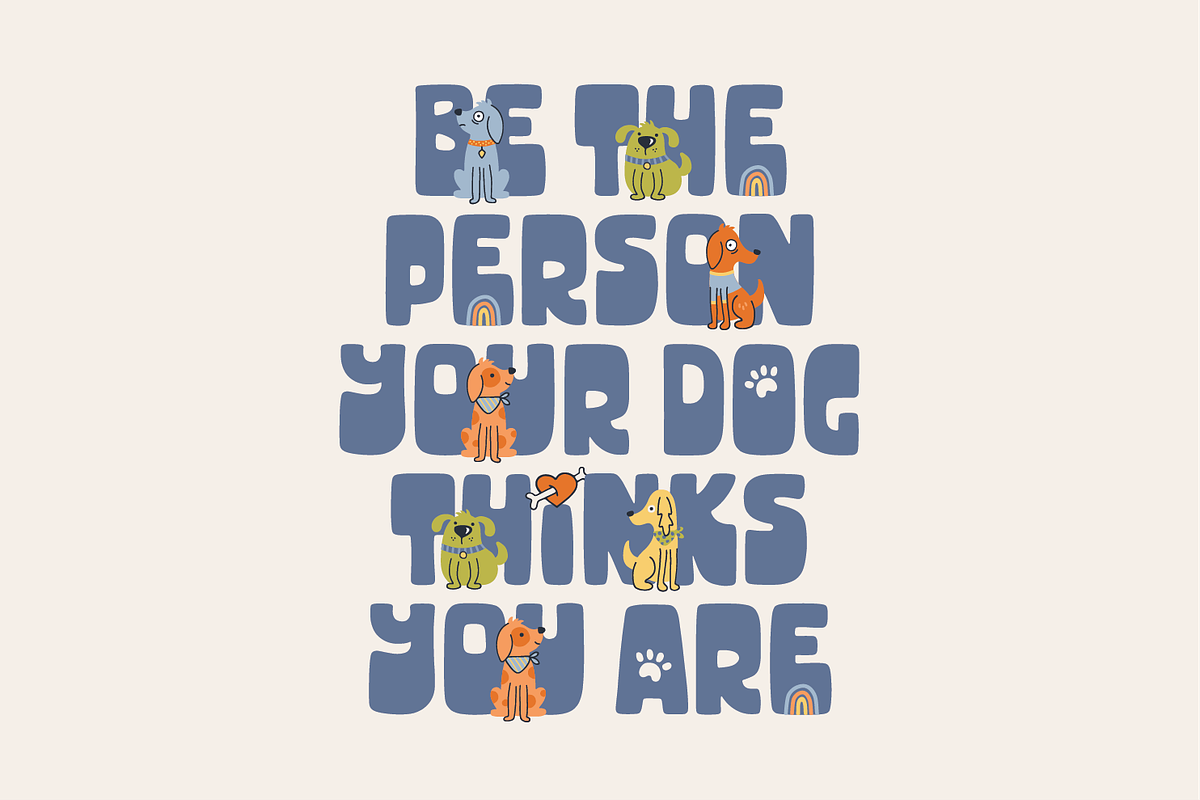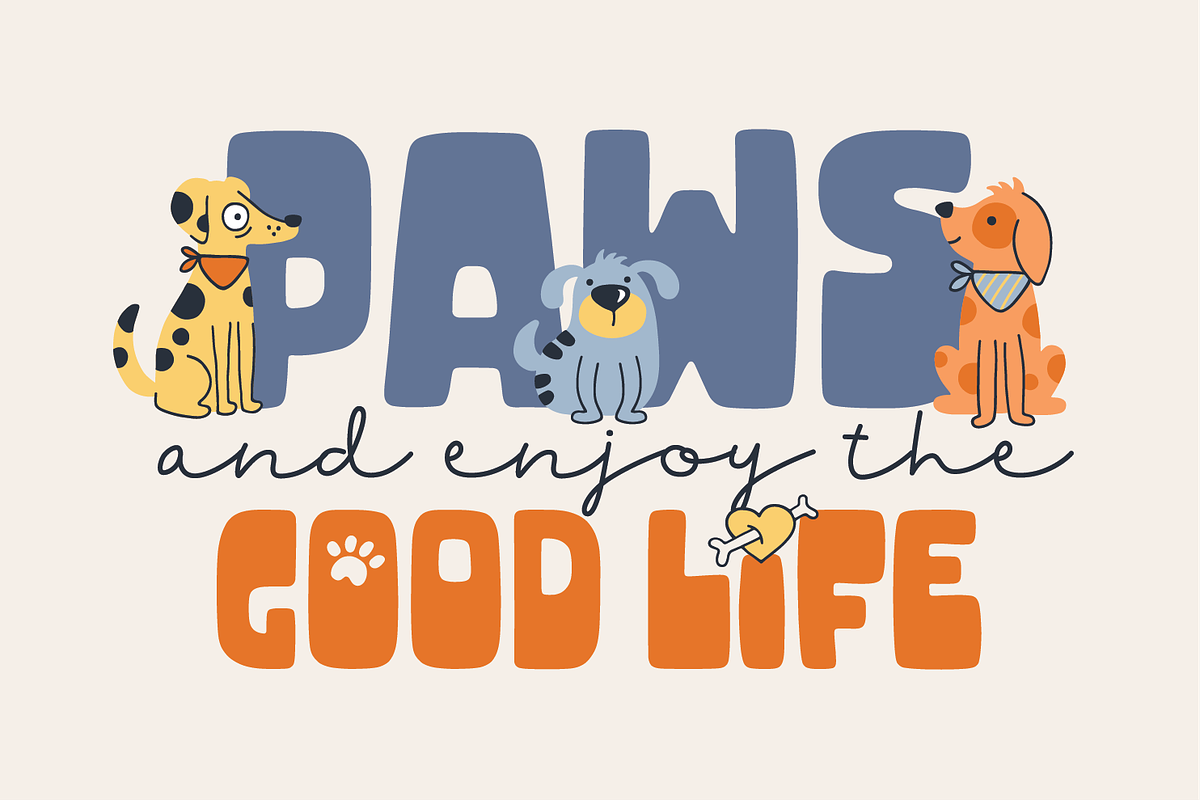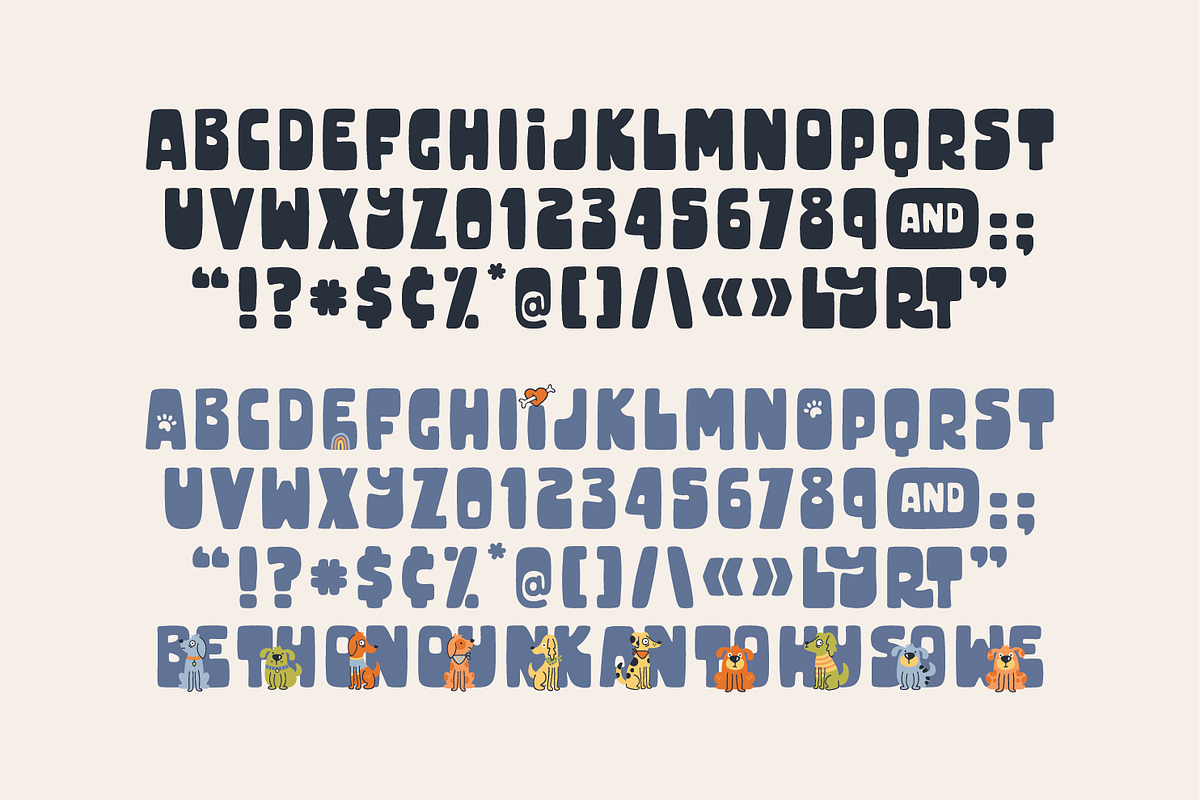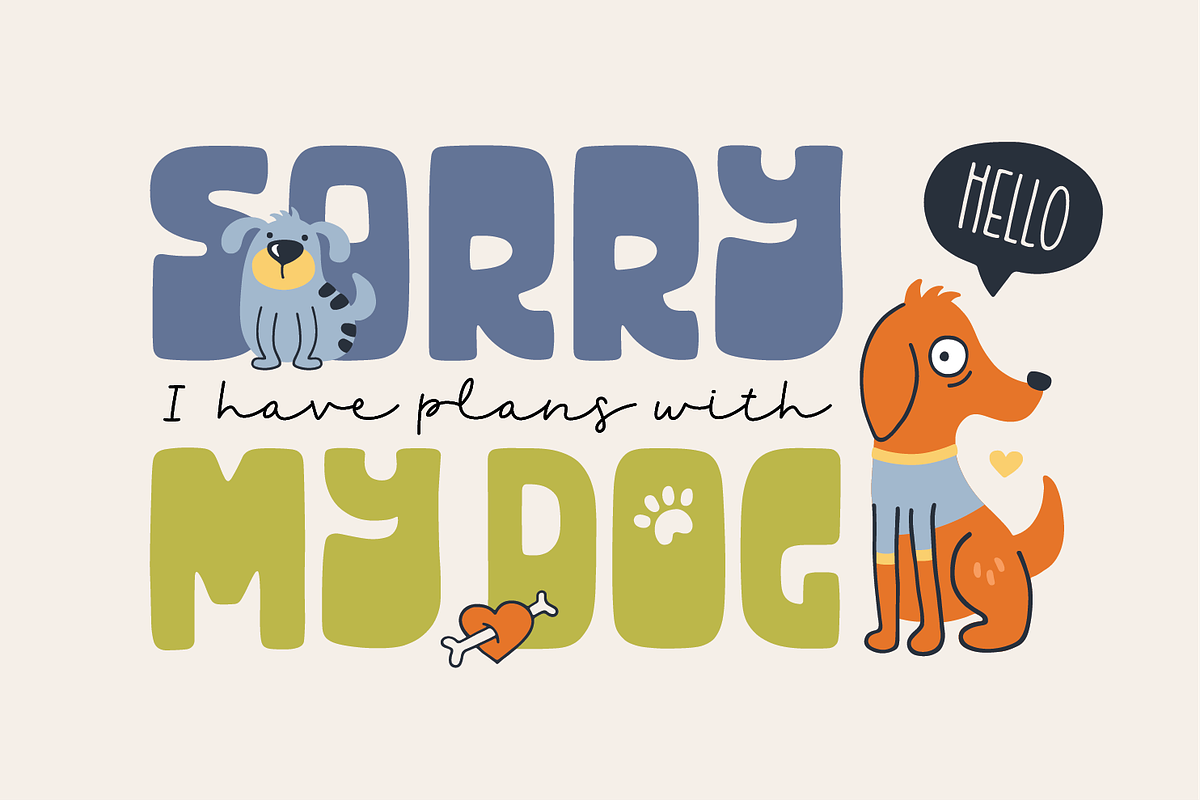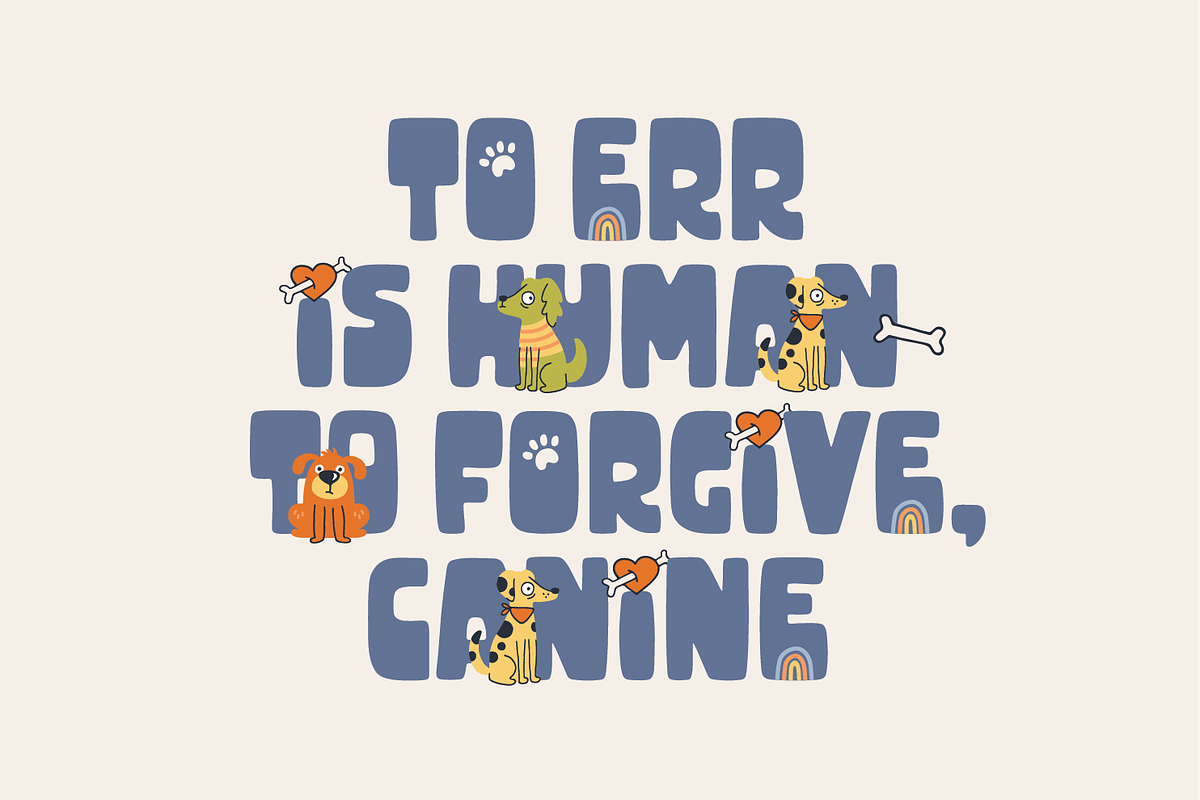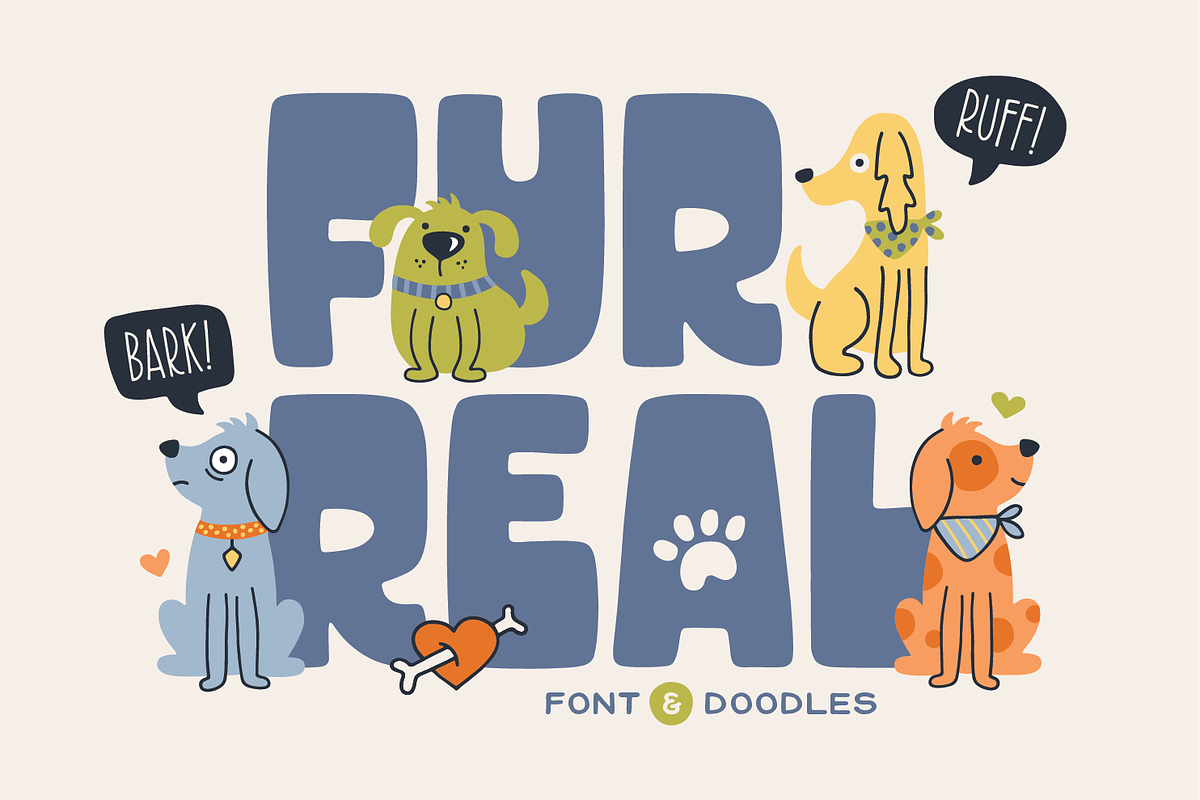
Fur Real Font & Doodles
Fur Real is an absolutely adorable hand-drawn font and doodle set. A bold, curvy, all-caps font is paired with charming dog-themed doodles. A color-svg version of the font is included as well as all of the elements individually for use in programs that do not support color fonts.